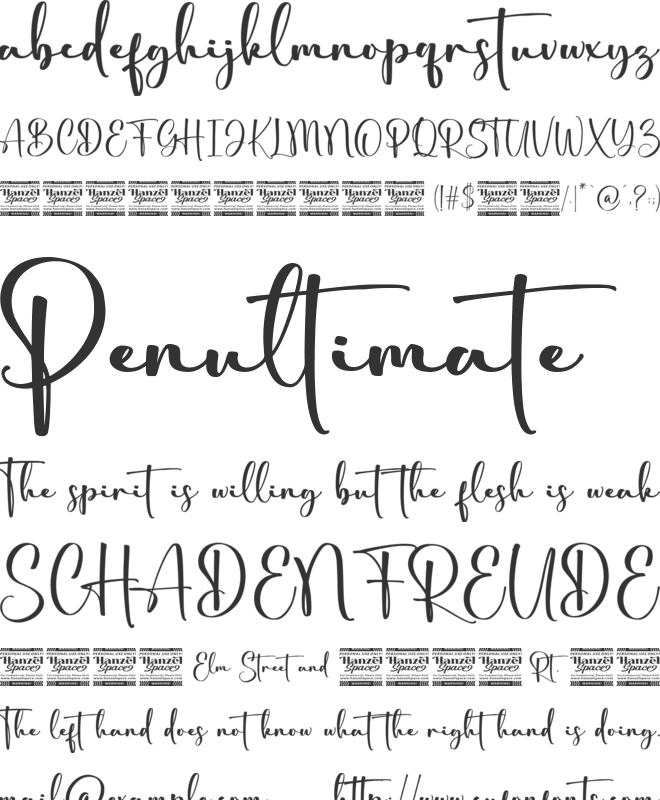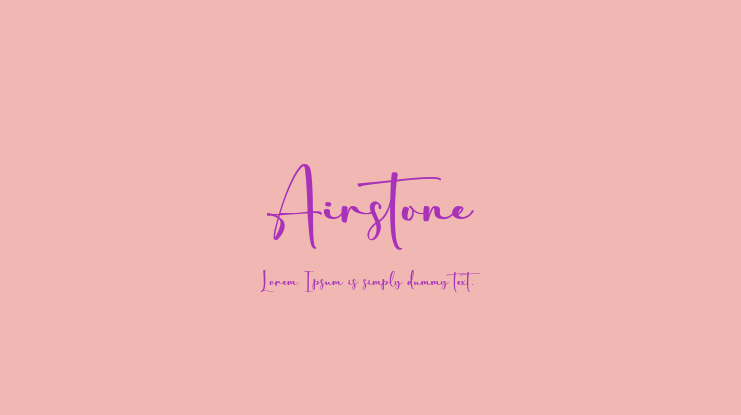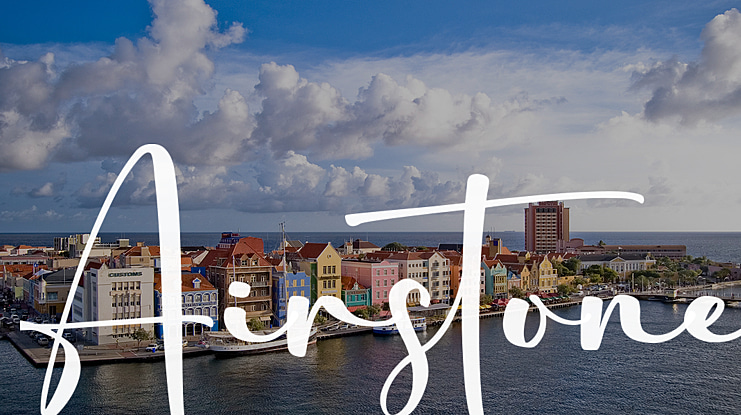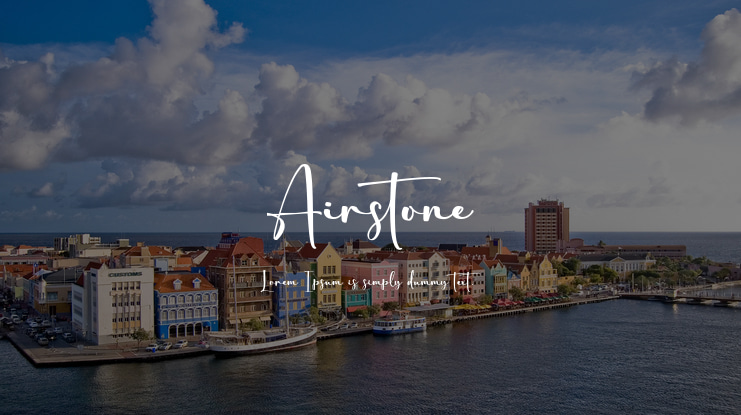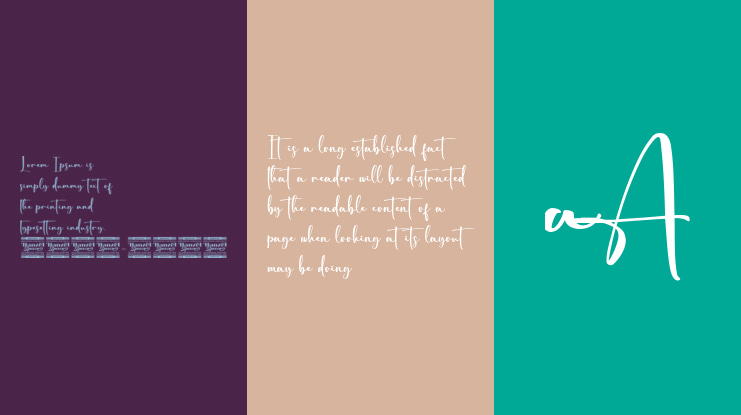
Introducing Airstone Handwritten Font
Airstone Handwritten Font with contemporary, sophisticated accents. It is perfect for branding, wedding invites, tagline, cards, maybe for label and logo.
Airstone includes full set of gorgeous uppercase and lowercase letters, numerals, a large range of punctuation and ligatures. It expresses beauty of handwriting. What you get
Features:
- Full Set of standard alphabet and punctuation
- Extra set of beginning swashed lowercase
- Extra set of ending swashed lowercase
- Handwritten ligatures
- Multilingual Characters (ÁÂÄÀÅÃÆÇÐÉÊËÈÍÎÏÌÑÓÔÖÒØÕÚÛÜÙẂŴẄẀÝŶŸỲ áâäàåãæçðéêëèíîïìñóôöòøõœúûüùẃŵẅẁýŷÿỳ€£¥)